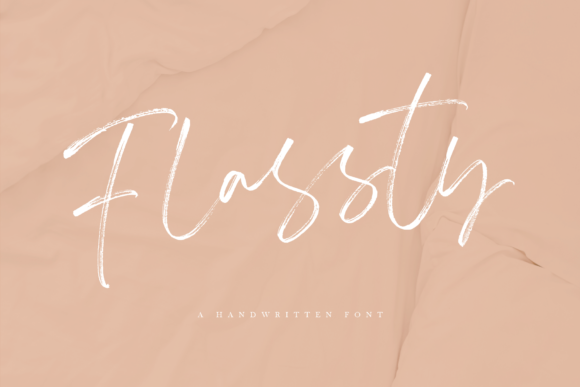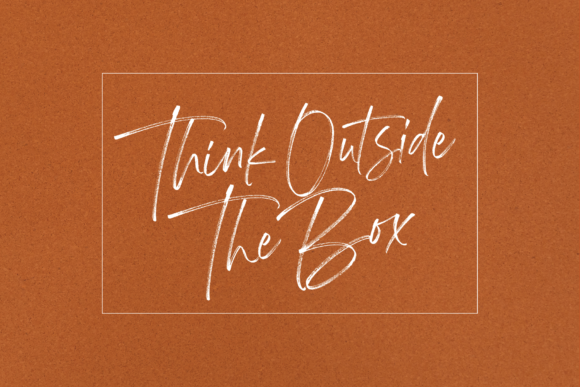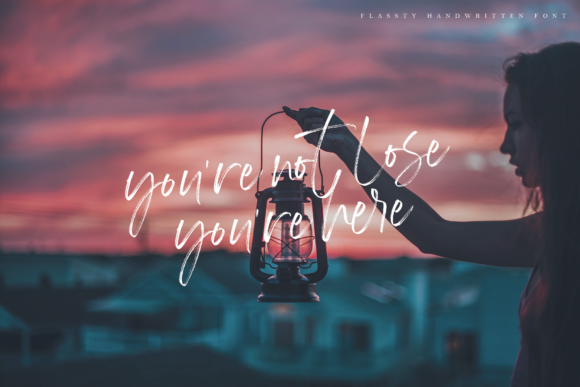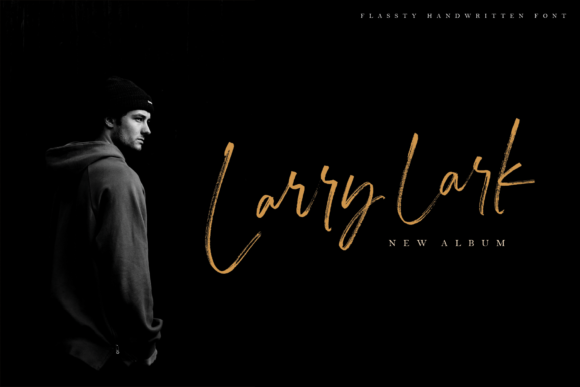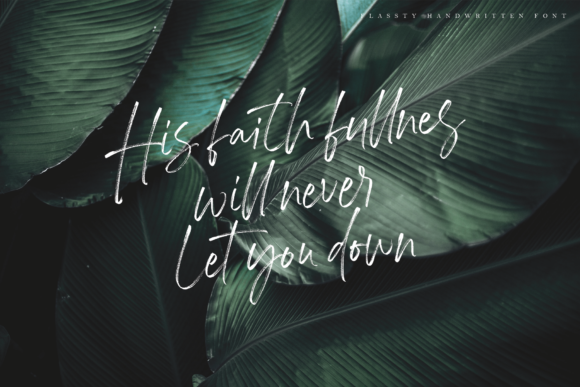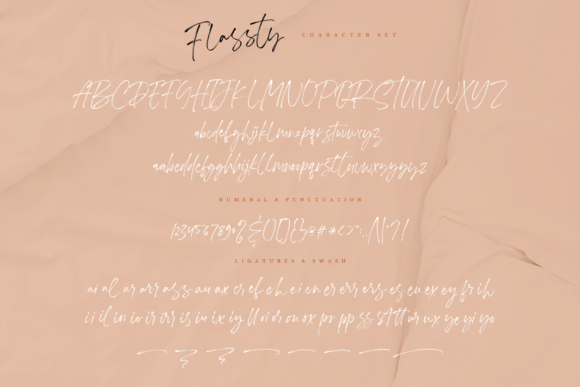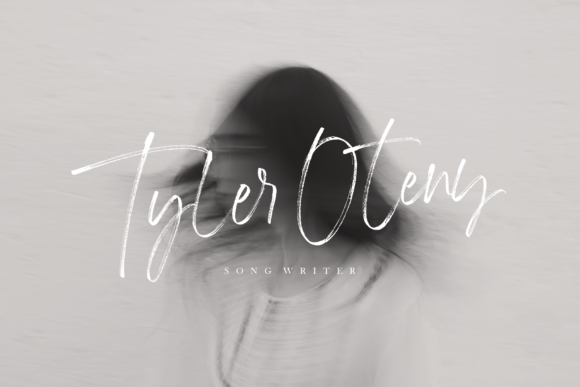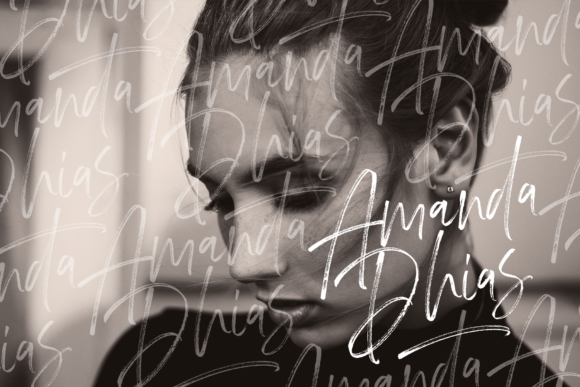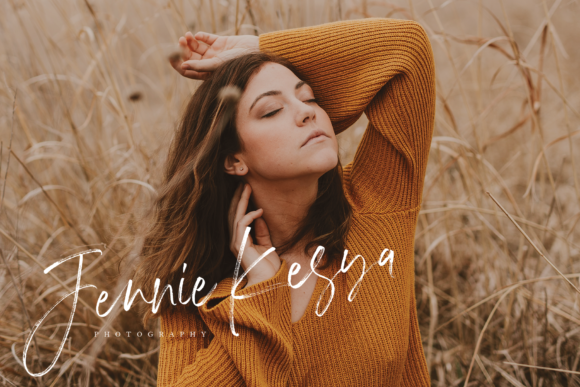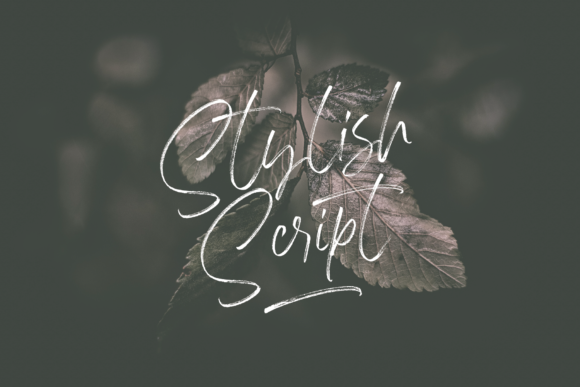
Flassty Font
About Flassty Font
Flassty is a casually beautiful script featuring sweet swashes. It will turn any project into a masterpiece, whether it’s stationery invitations, social media, logos, weddings, branding, or any other graphic design endeavor!